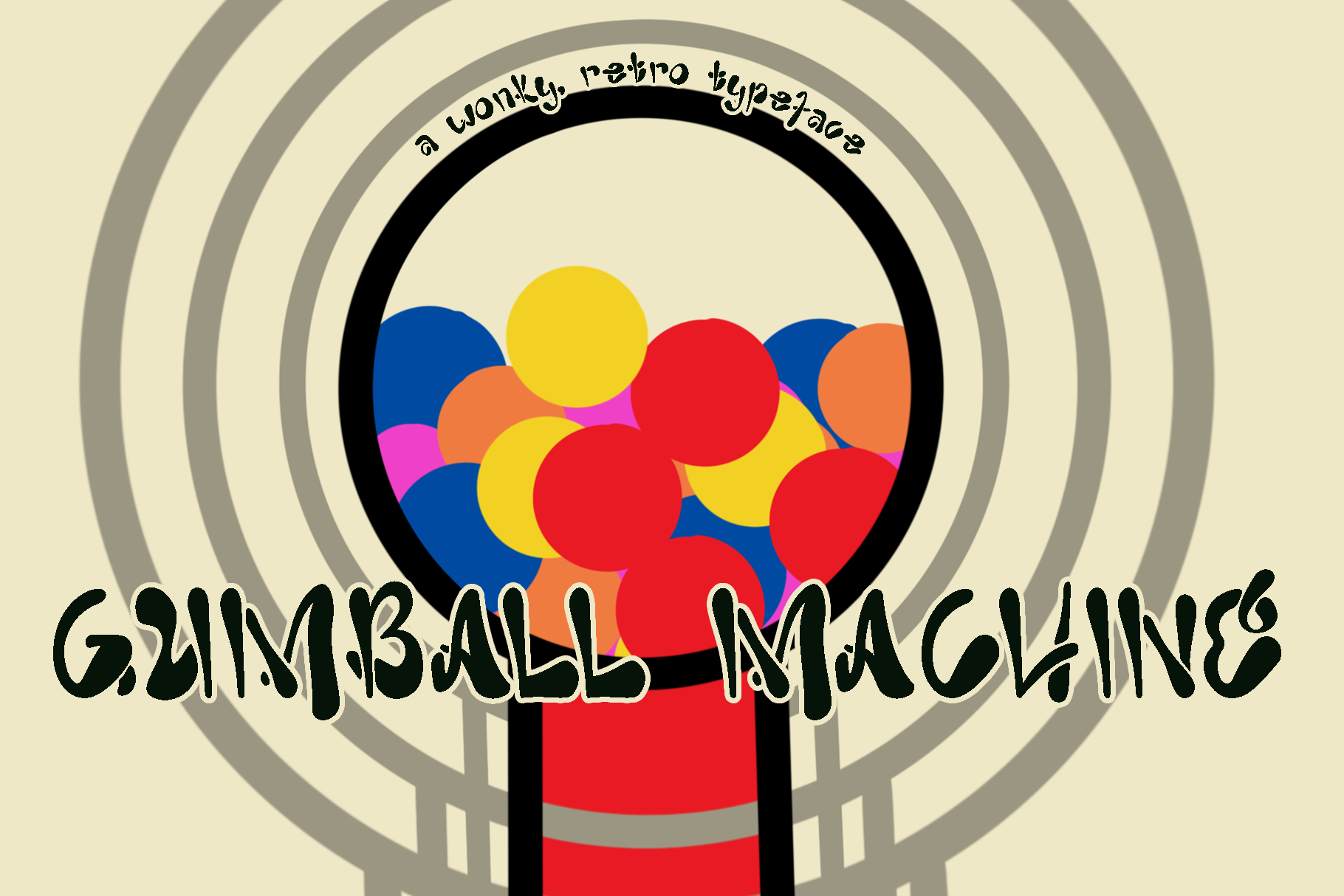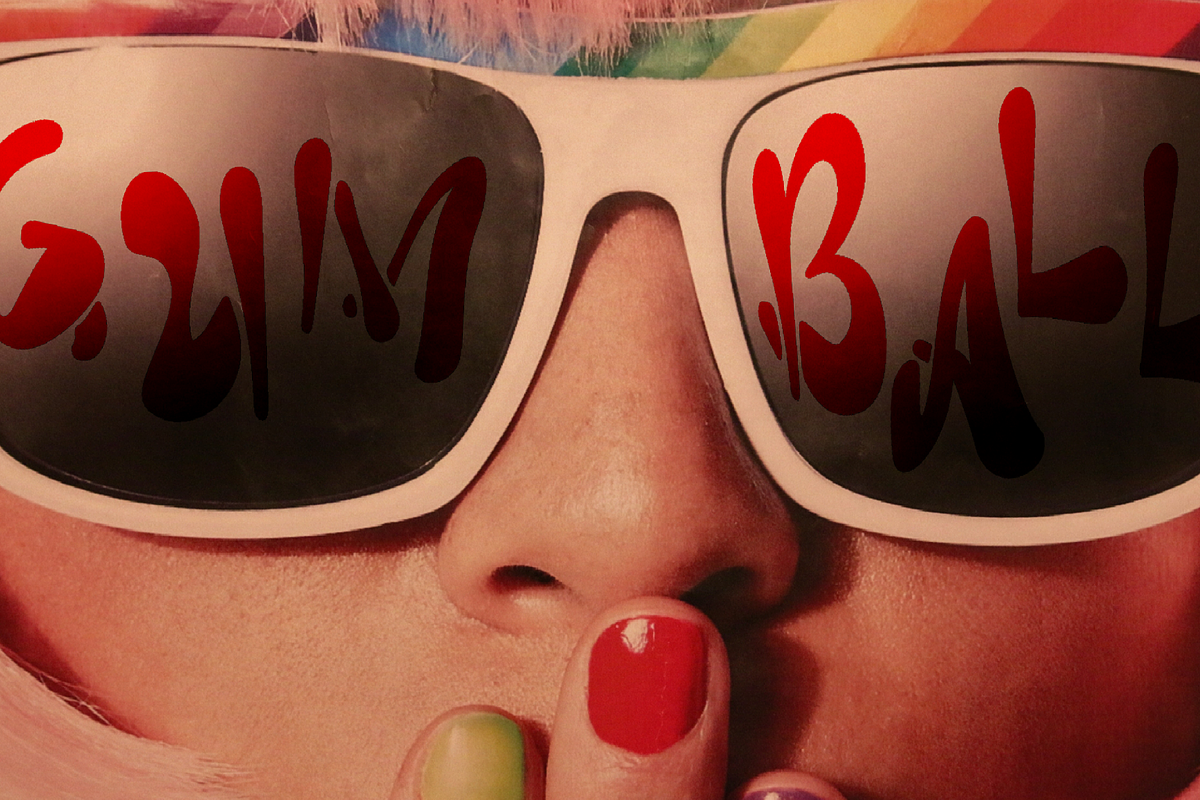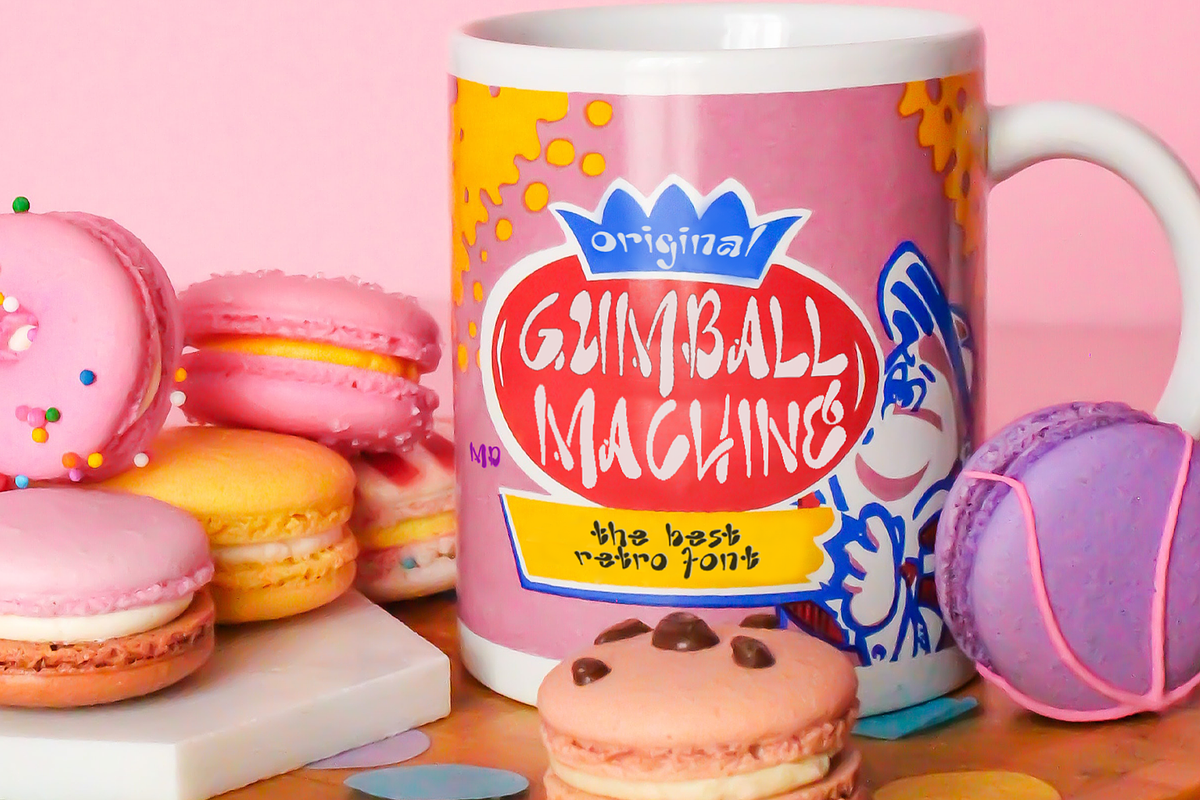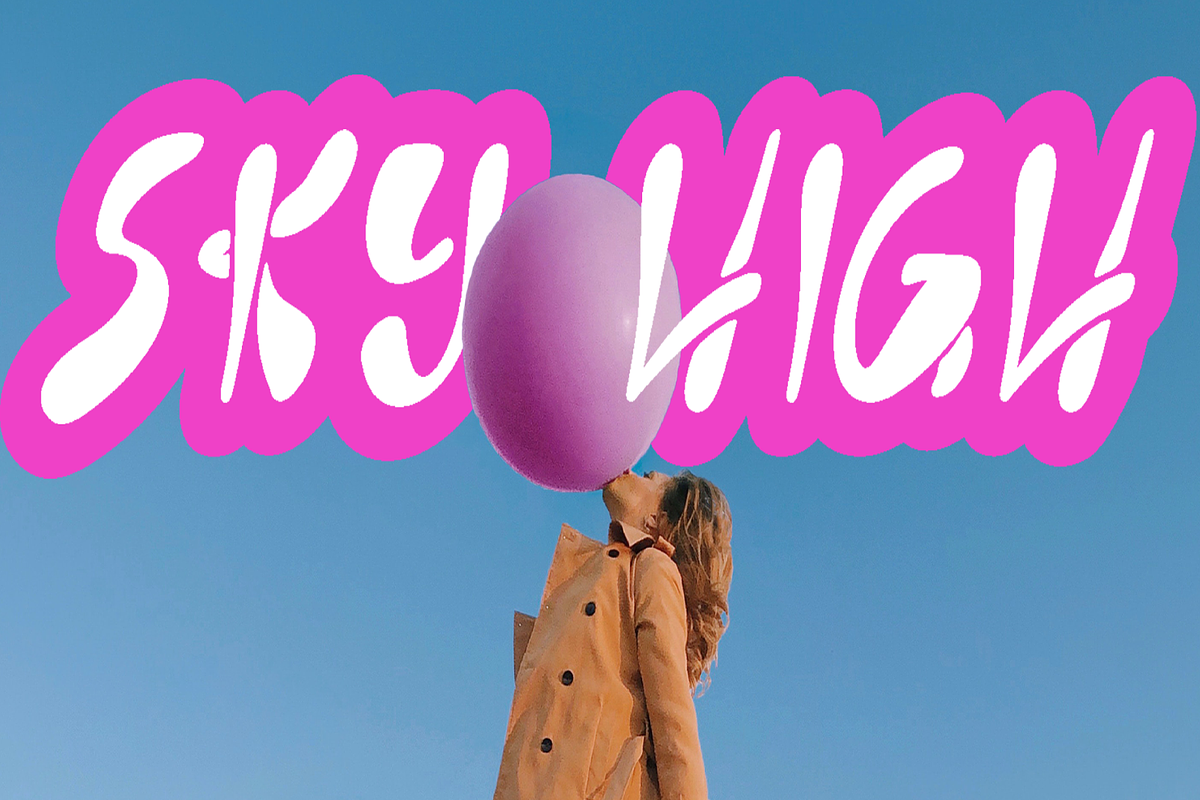
Gumball Machine Typeface
Gumball Machine Retro Typeface is everything you ever wanted in retro type design. With eight font styles, its disconnected and eccentric nature is enough to give any project some funk. Amazing for the spring and summertime!
440 characters supported, and supports most western languages!